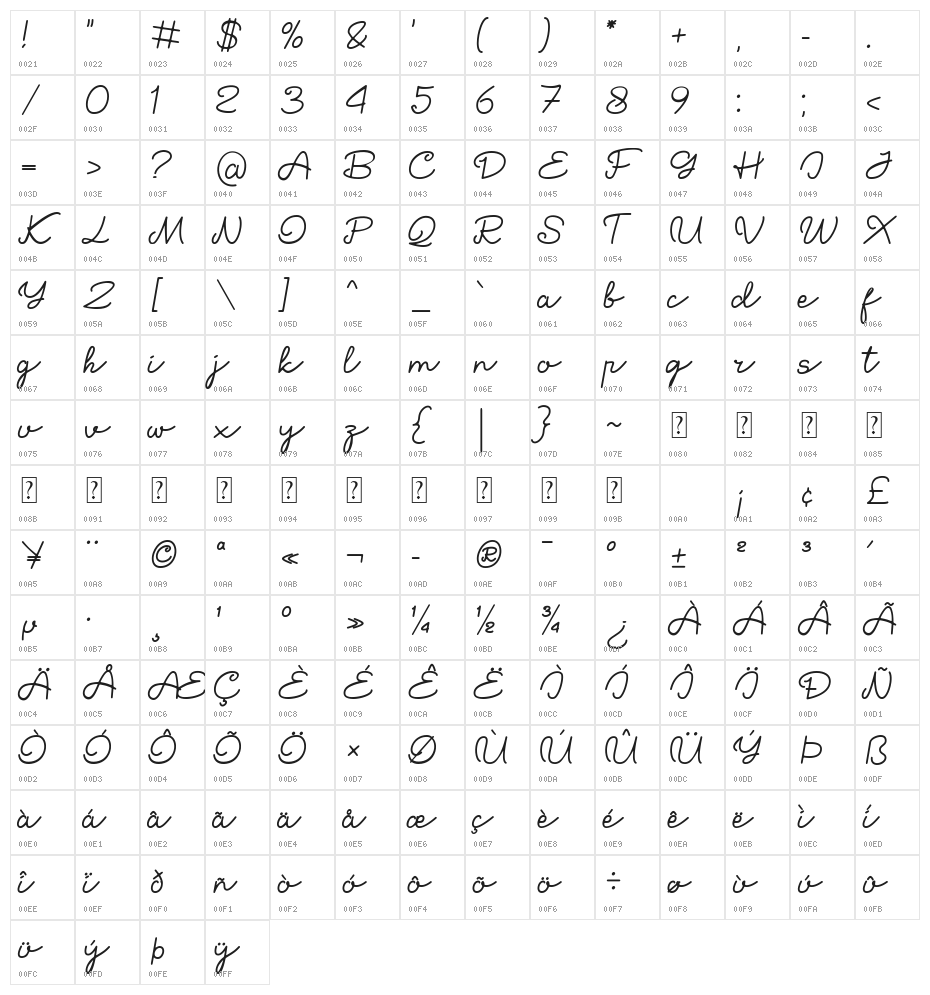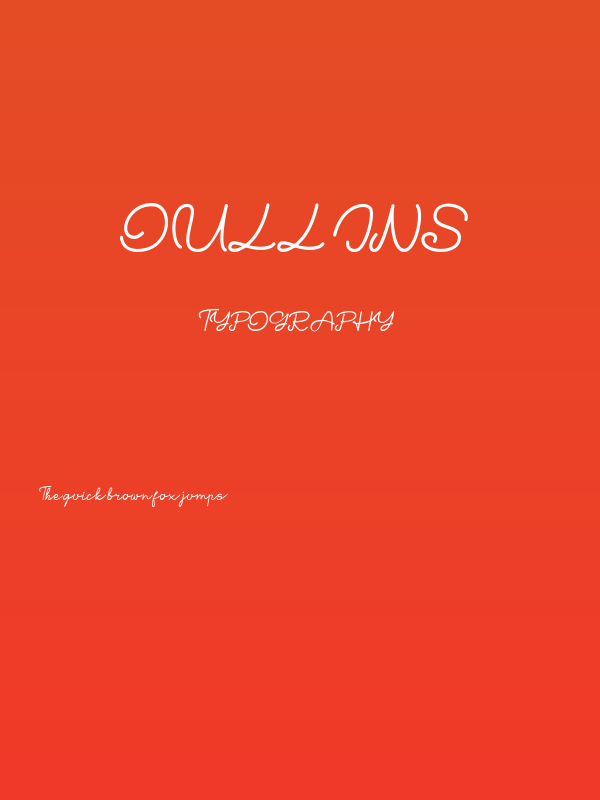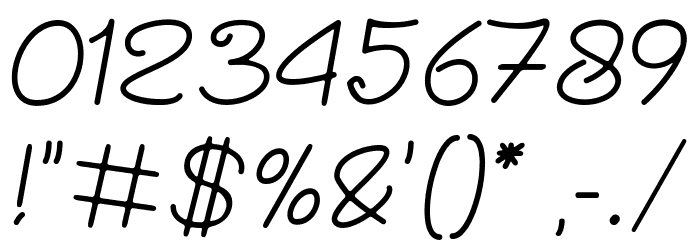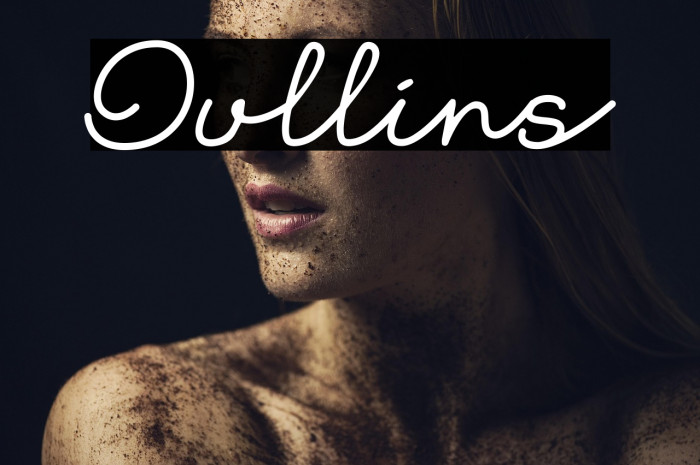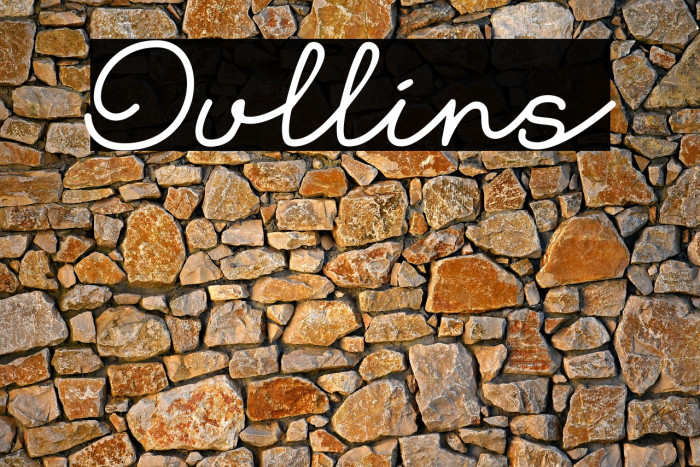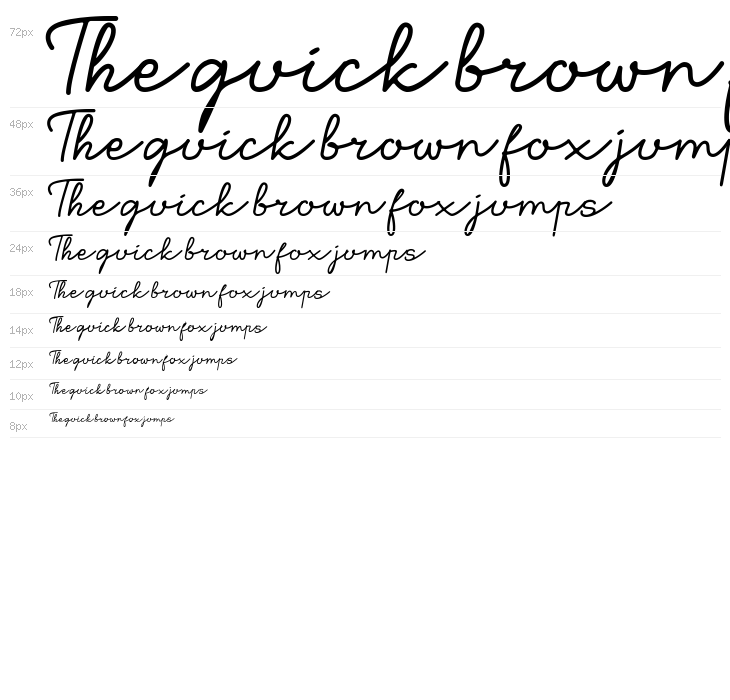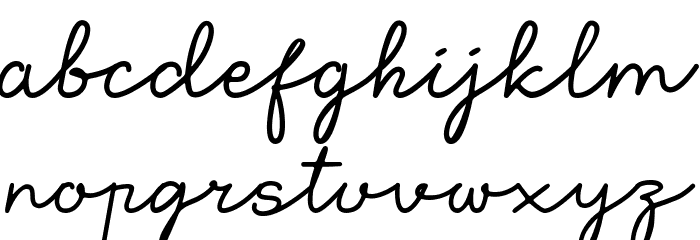
Oullins Font
Oullins Description
This font features a flowing, cursive style that mimics elegant handwriting. The uppercase letters are gracefully connected, while the lowercase letters maintain a consistent, smooth flow. The numerals and special characters are designed with the same fluidity, offering a cohesive look across all characters. The strokes are moderately thick, providing a balanced contrast that enhances readability while maintaining an artistic flair. This font exudes a sense of sophistication and charm, making it suitable for projects that require a personal touch.
| Proposed Projects | Ideal for wedding invitations, greeting cards, personal branding, and decorative signage. |